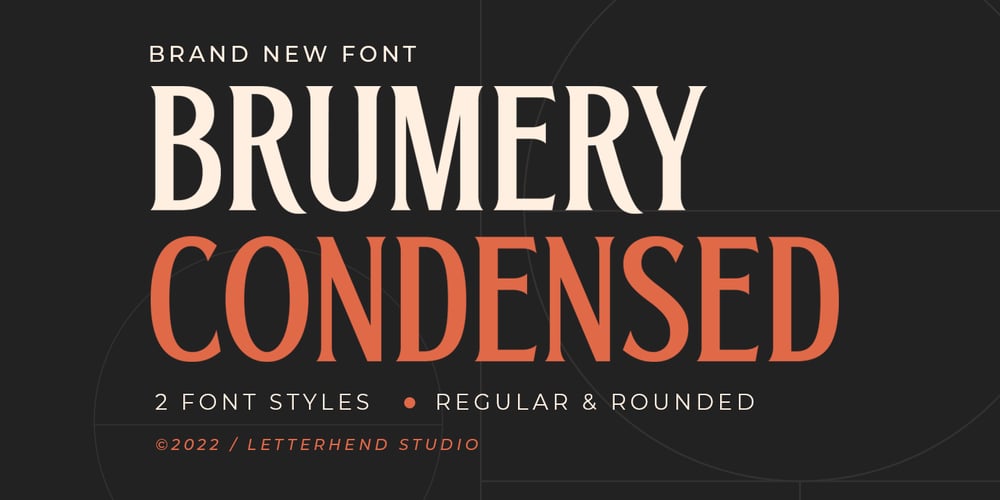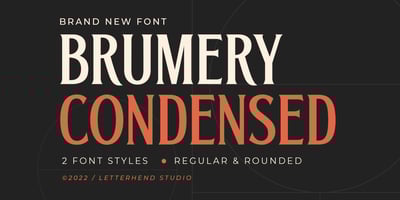
Brumery
Brumery font
Brumery Font Family was designed by Hendry Juanda and published by Letterhend. Brumery contains 2 styles and family package options. Brumery Condensed is a sleek condensedfont. Perfect to be applied to the other various formal forms such as invitations, labels, logos, magazines, books, greeting / wedding cards, packaging, fashion, make up, stationery, novels, labels or any type of advertising purpose.Features : numbers and punctuation multilingual PUA encoded We highly recommend using a program that supports OpenType features and Glyphs panels like many of Adobe apps and Corel Draw, so you can see and access all Glyph variations.